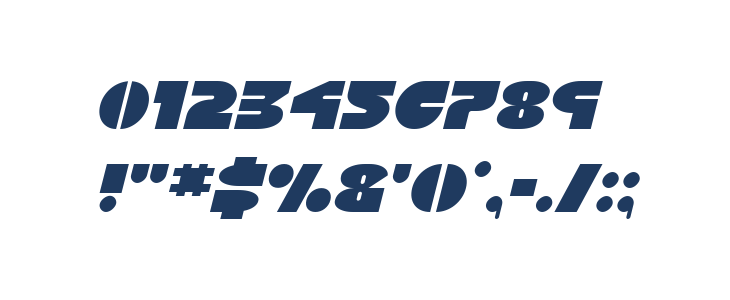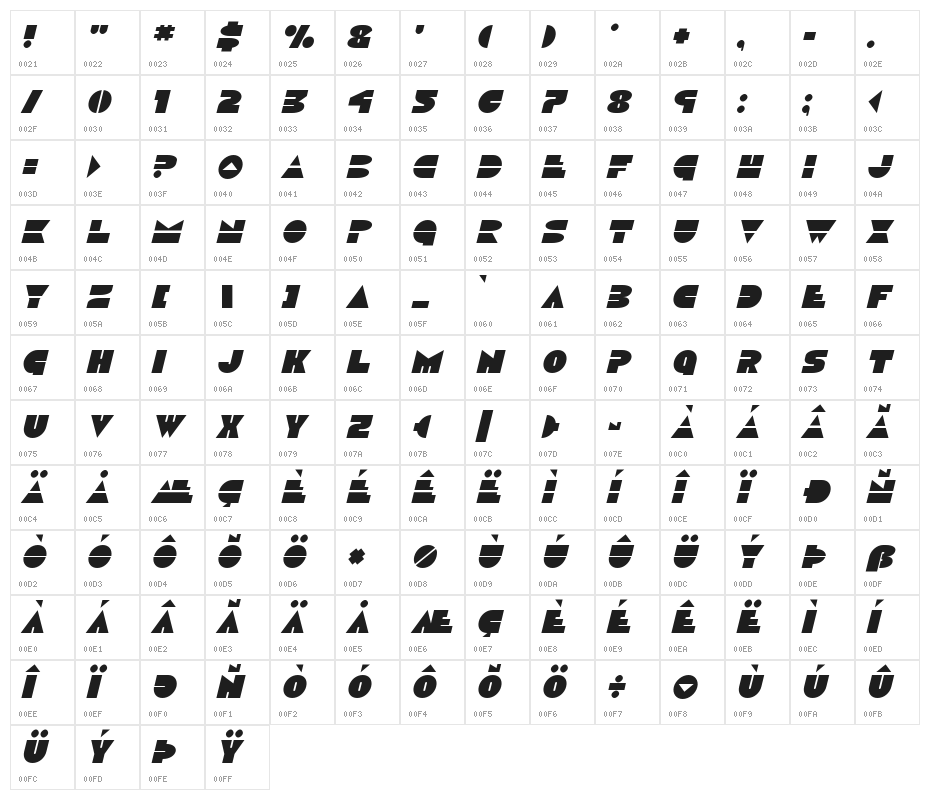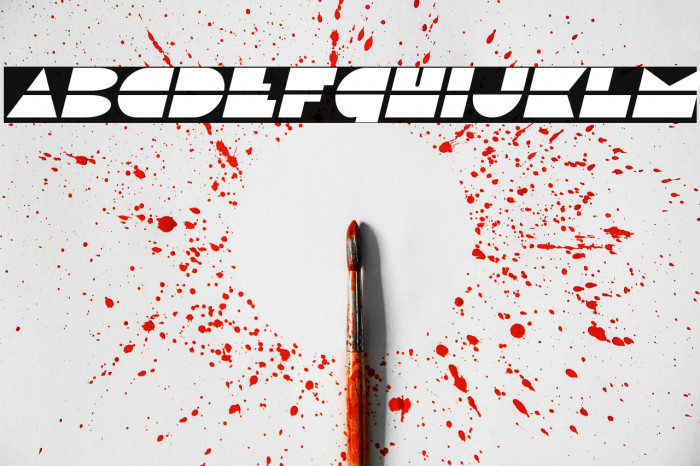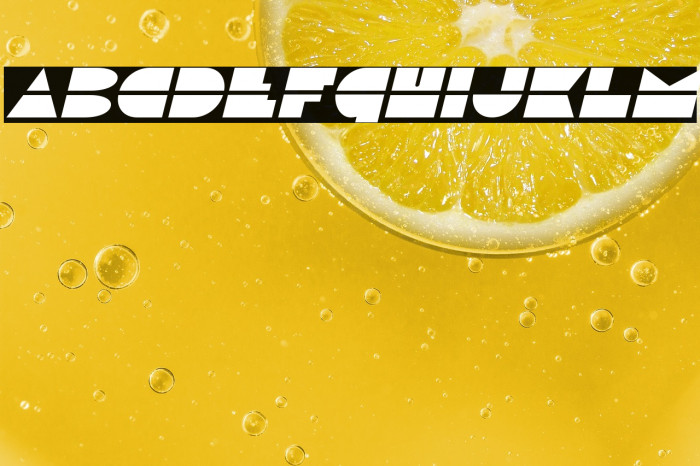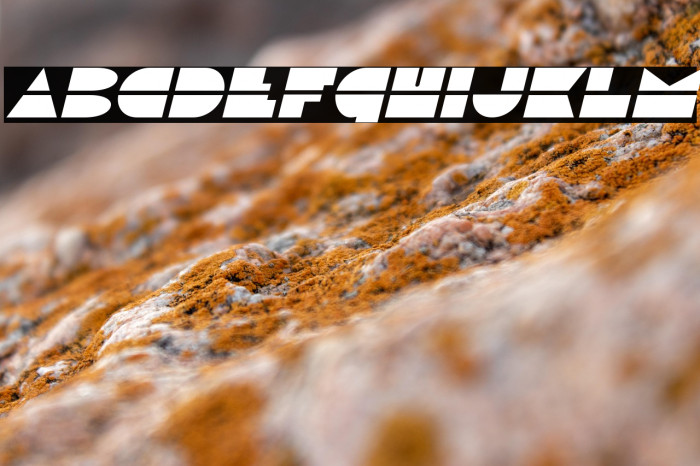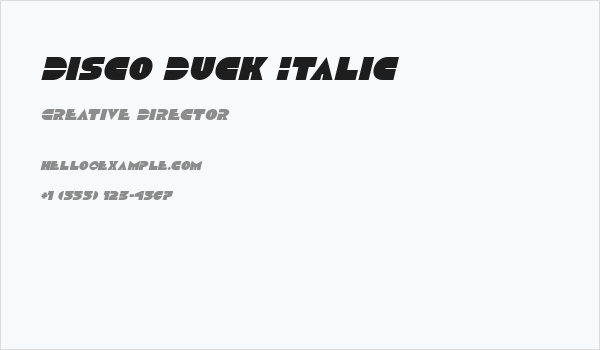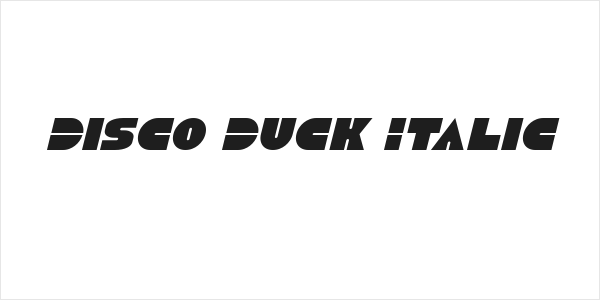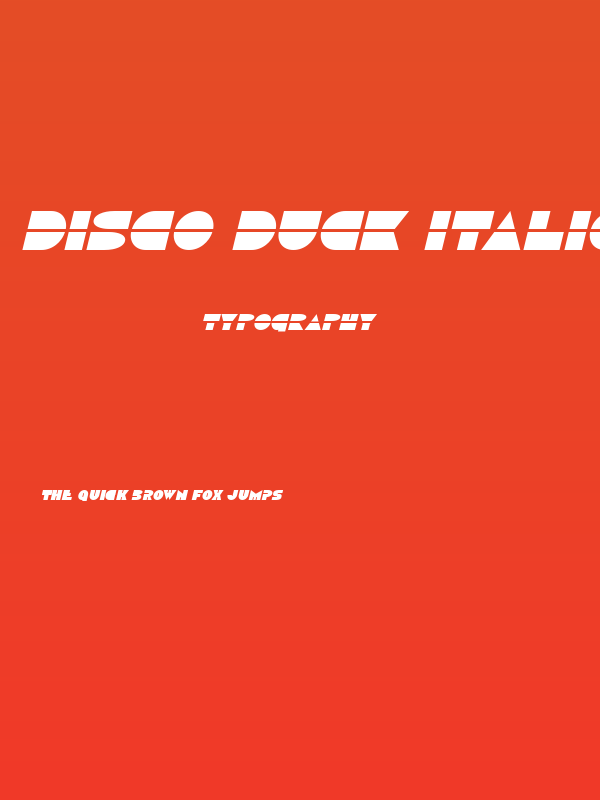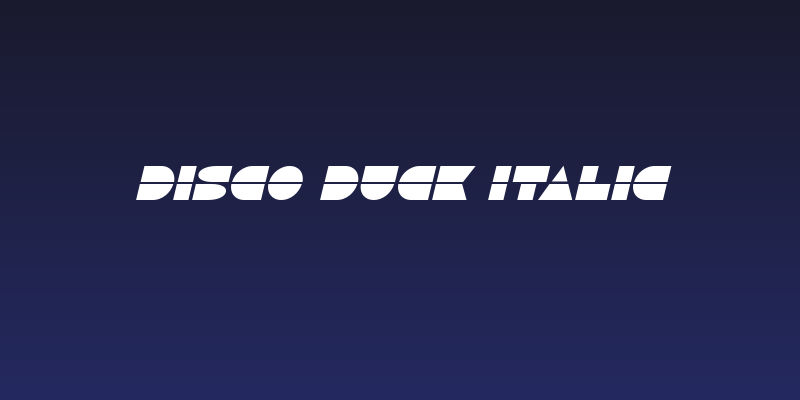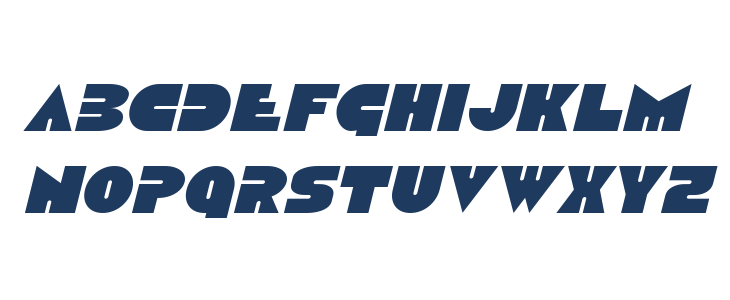
Disco Duck Italic Font
Disco Duck Italic Description
This font features a bold, geometric style with a distinct italic slant, creating a dynamic and energetic appearance. The characters are constructed with sharp angles and clean lines, giving them a futuristic and modern feel. The uppercase and lowercase letters maintain a consistent style, with the uppercase being slightly more pronounced. Numbers and special characters follow the same design principles, ensuring uniformity across all glyphs. The font's unique style makes it stand out, making it ideal for eye-catching designs.